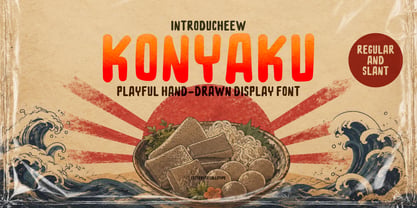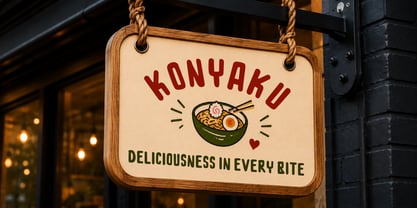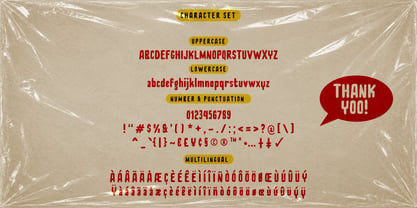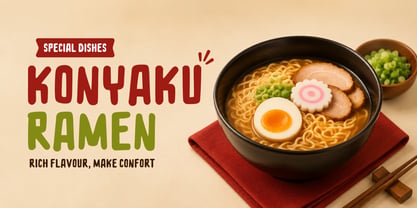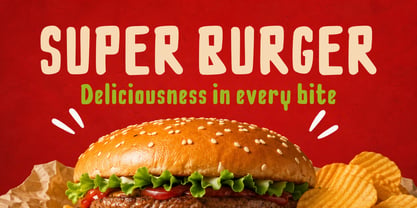
Konyaku
by Letterytz CalliType
The Konyaku Font Family was designed by Wahyu Eka Prasetya, Dian Angga Marytama and published by Letterytz CalliType. Konyaku contains 2 styles and family package options. More about this family
Konyaku is a playful hand-drawn display font that brings warmth, personality, and a handcrafted touch to every design. Featuring bold, rounded letterforms with an organic irregular style, it creates a fun and approachable look while maintaining excellent readability. Perfect for branding, logos, packaging, food labels, children's products, posters, social media graphics, merchandise, headlines, and creative editorial projects. Whether you're designing for playful brands or eye-catching marketing materials, Konyaku delivers a charming handmade aesthetic that stands out across both print and digital media.
Features
• Uppercase Characters
• Numbers & Punctuation
• Multilingual Support
• Regular and Slant